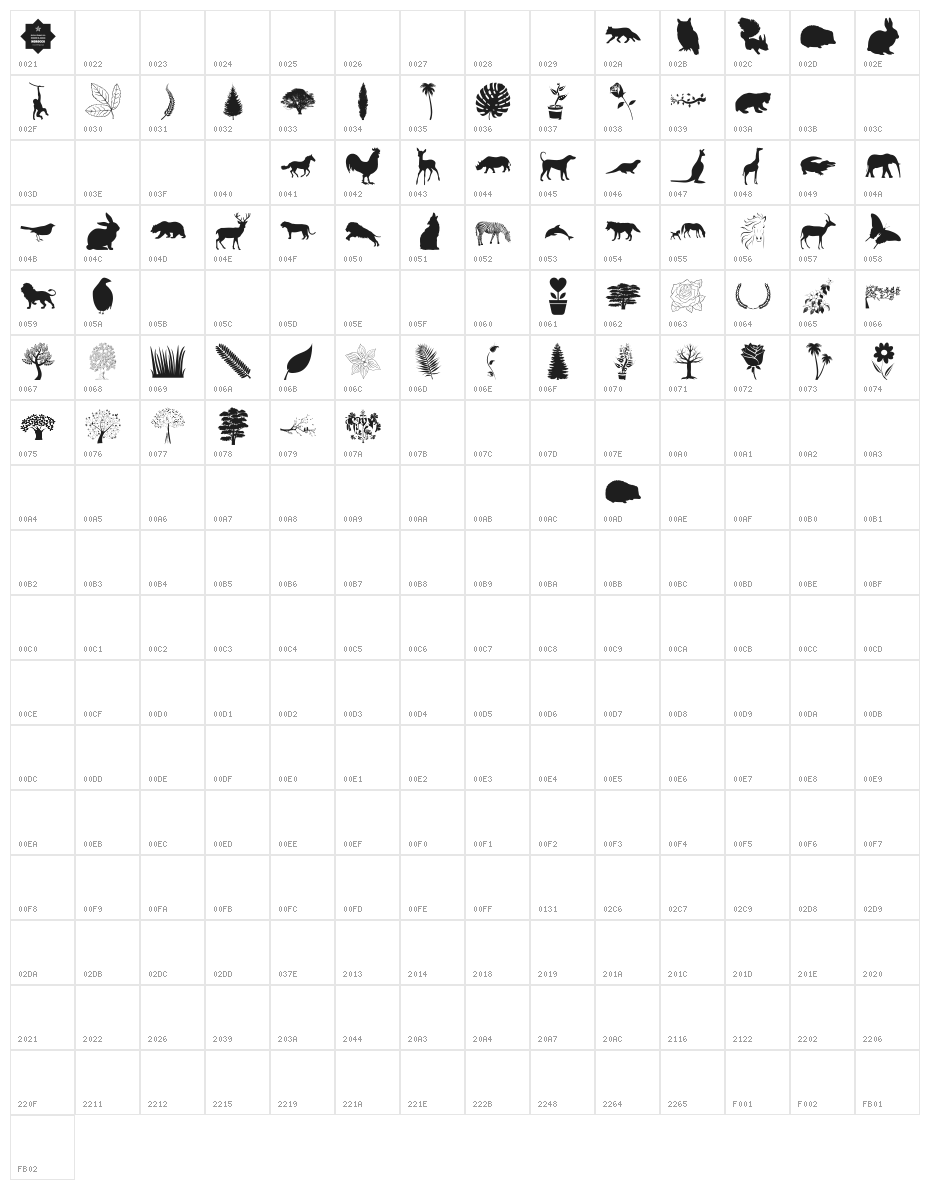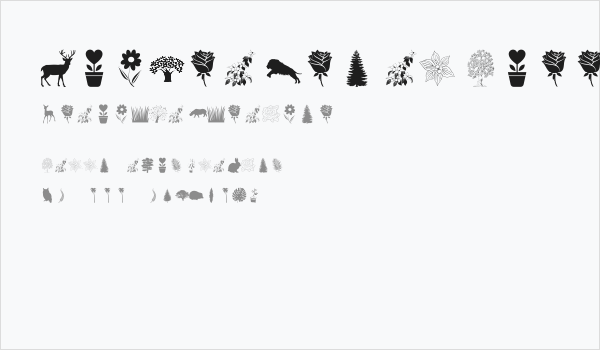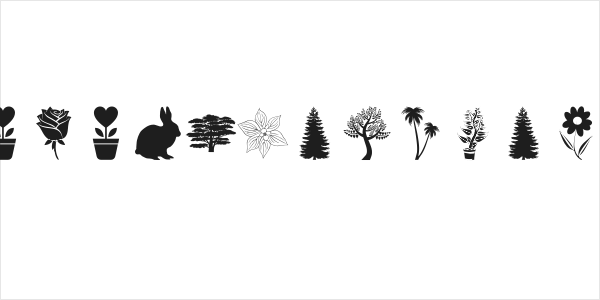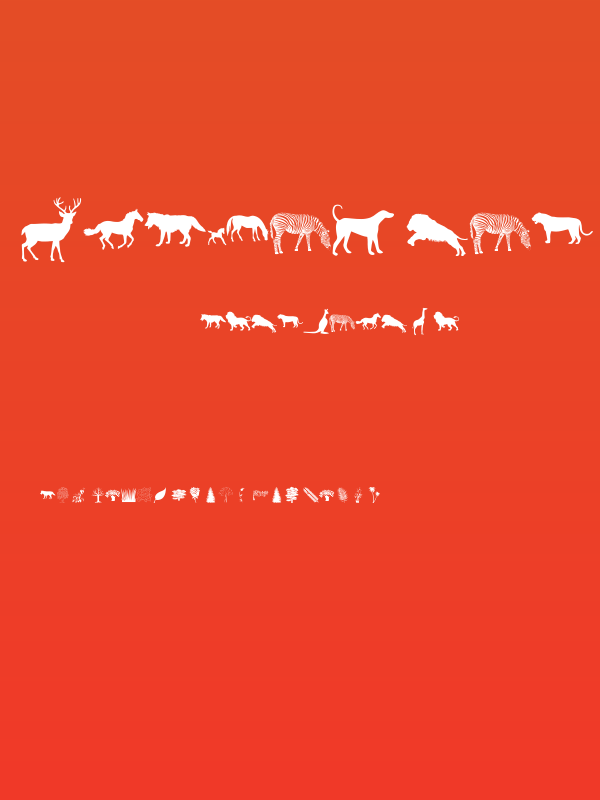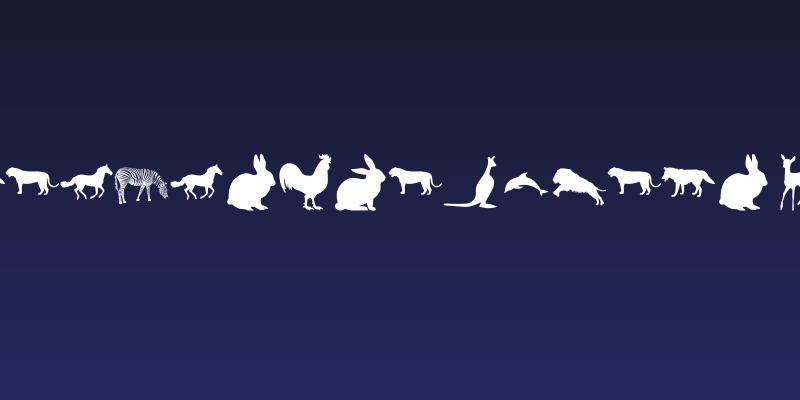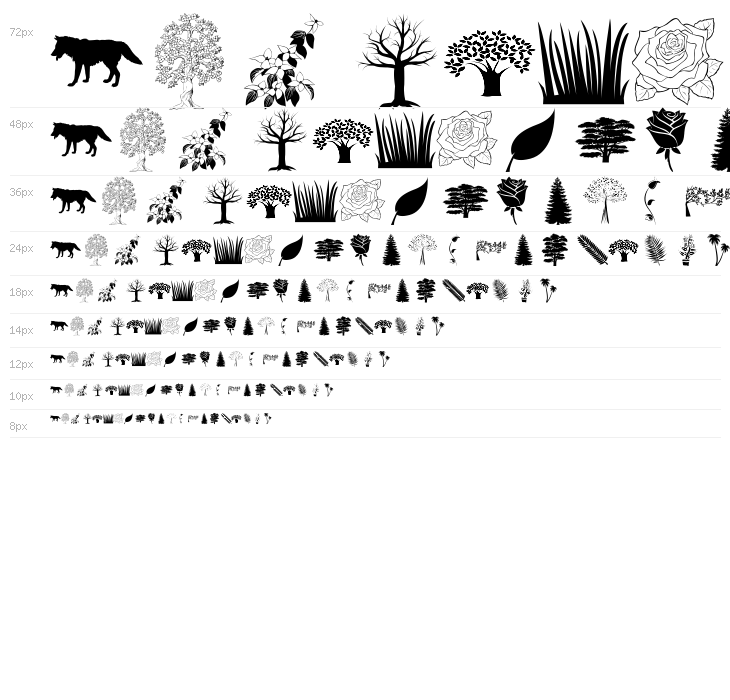
Nature Pro el harrak © photoara.blogspot.com : darrati10@gmail.com Description
A collection of nature-themed pictograms featuring animals, plants, trees, and leaves in a silhouette style. Each glyph is a detailed black-and-white illustration rather than traditional alphanumeric characters.
| Overall Style | Decorative, Nature, Silhouette |
| Use Case | Icons, Illustrations, Themed graphics, Decorative elements |
| Proposed Projects | Educational materials, environmental posters, children's books, eco-friendly branding, infographics. |